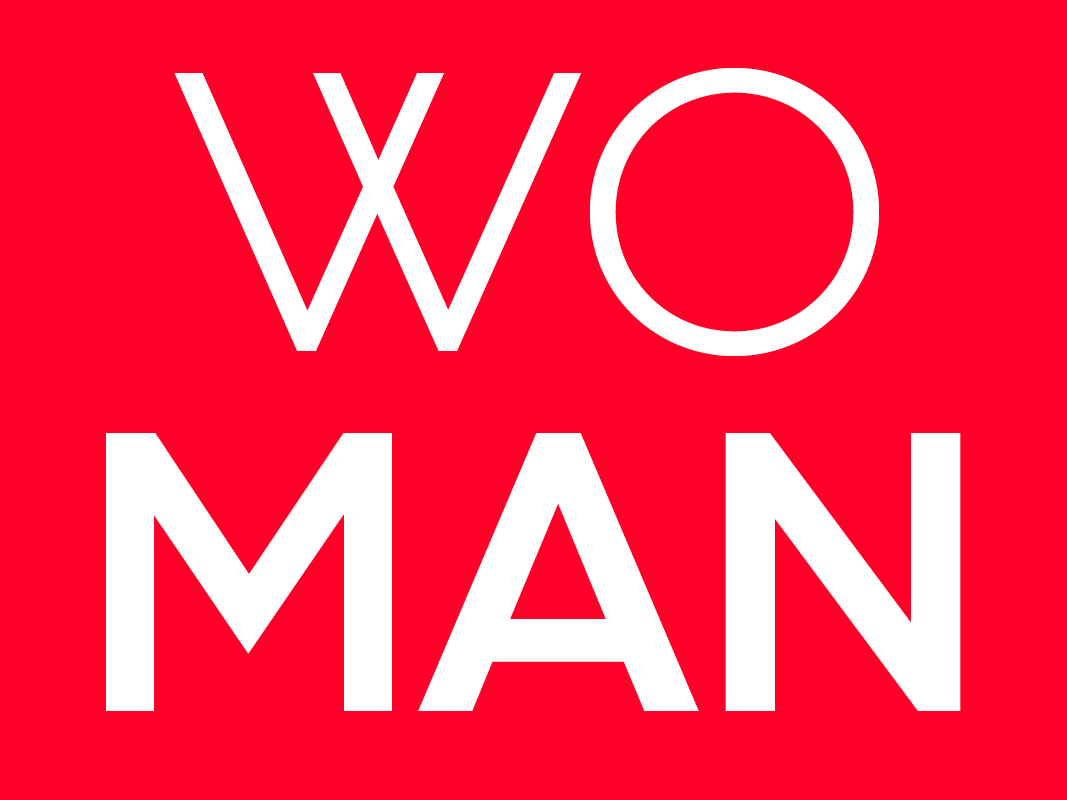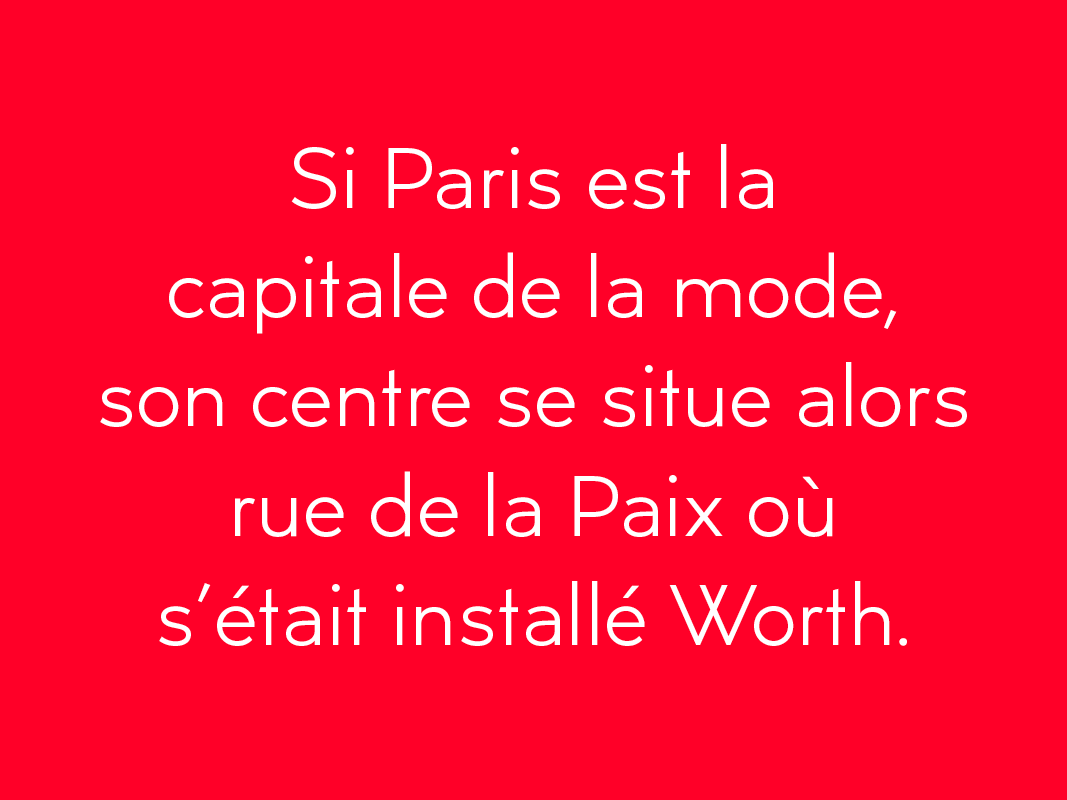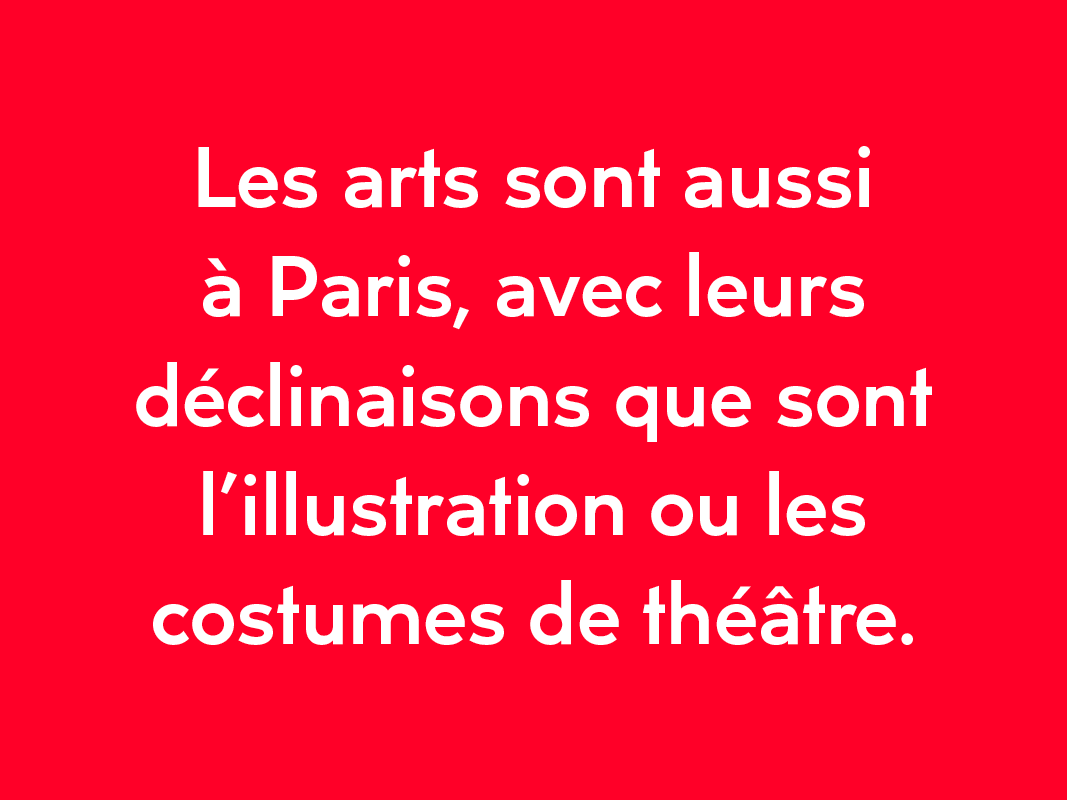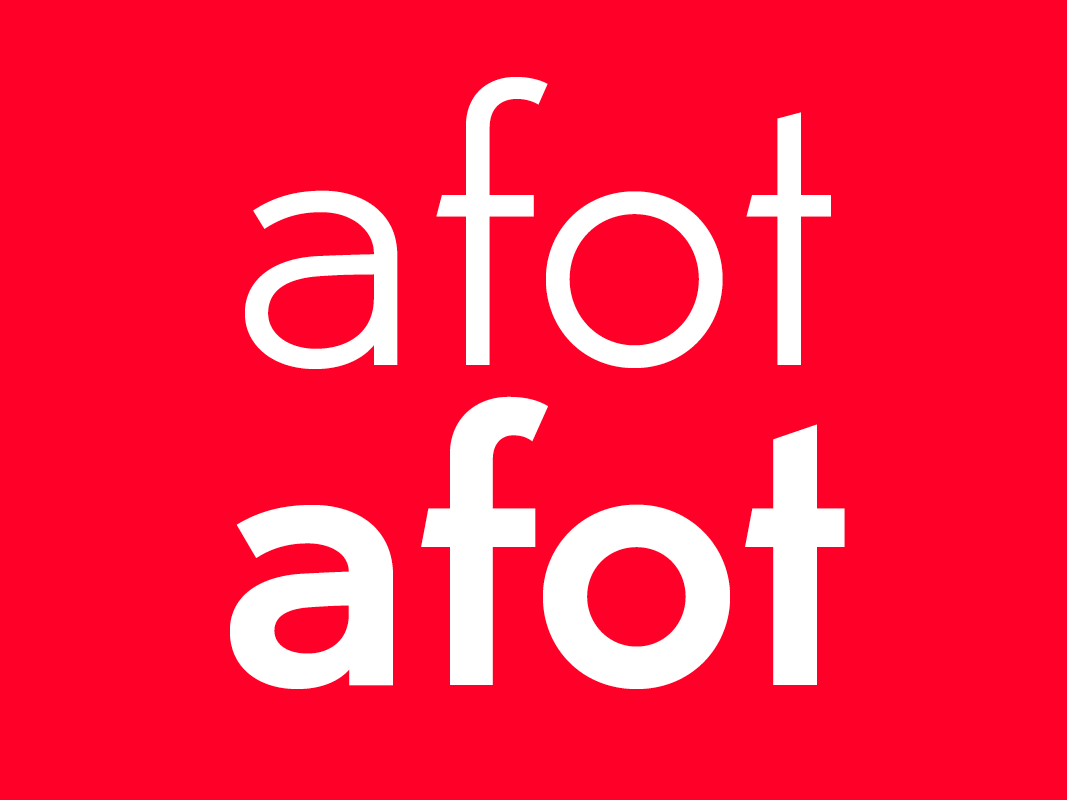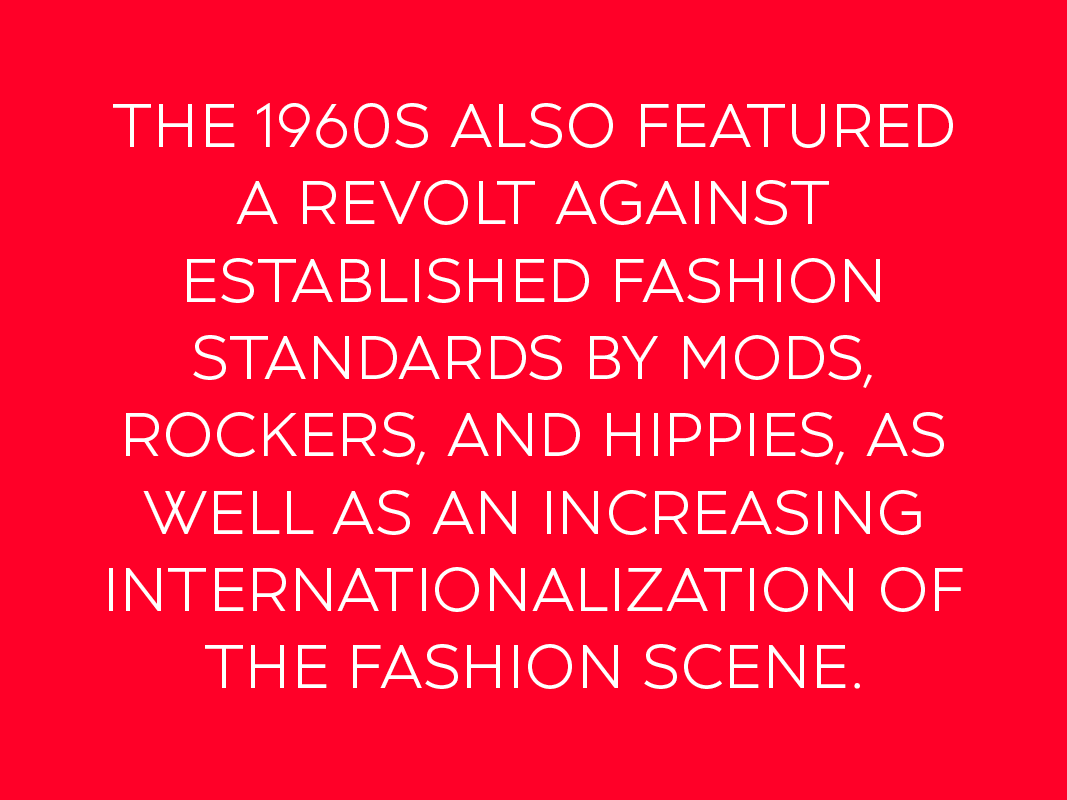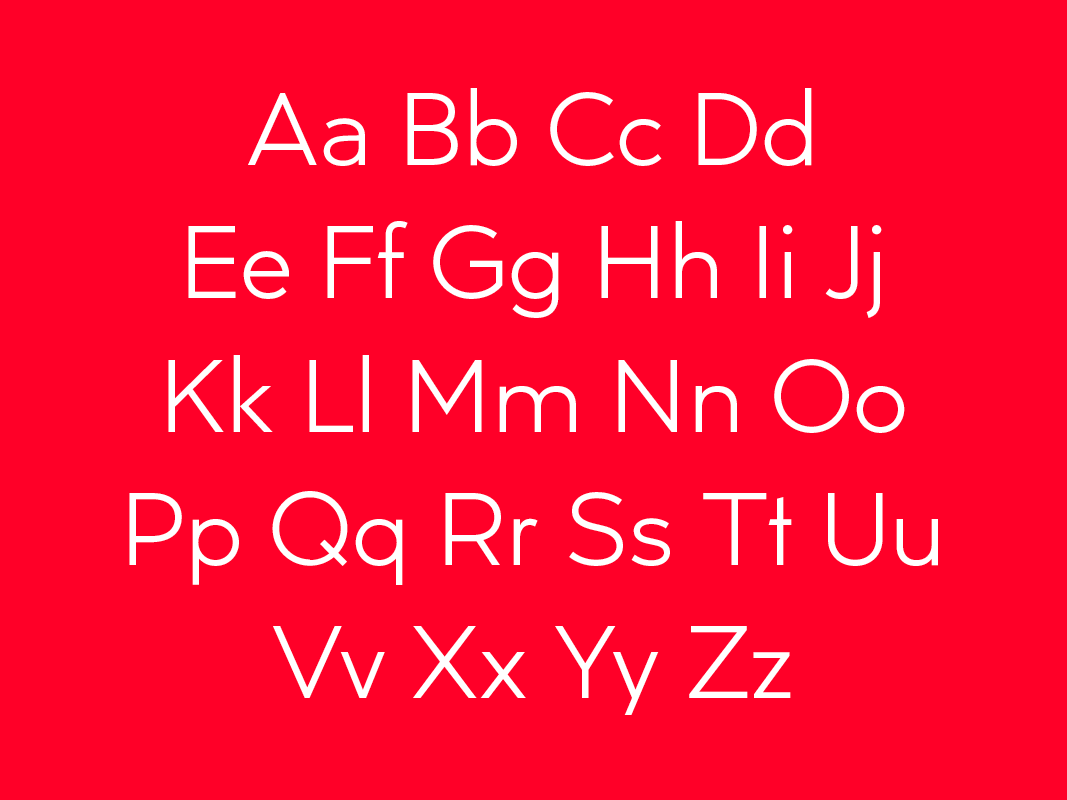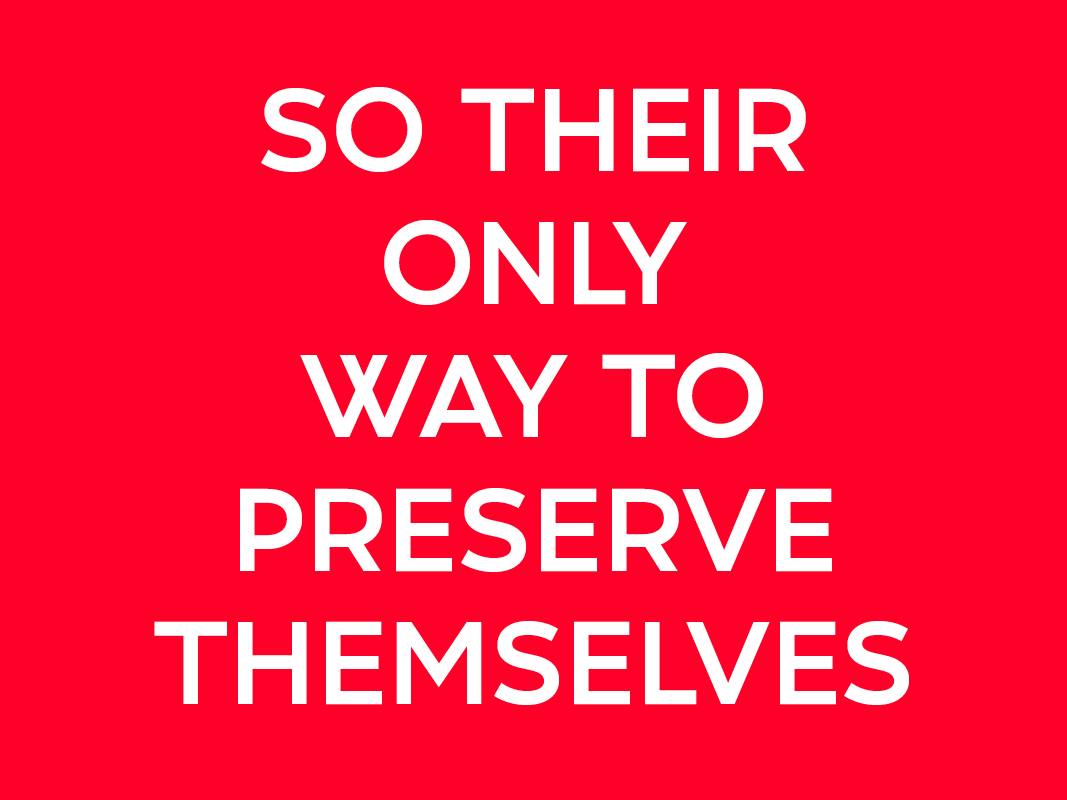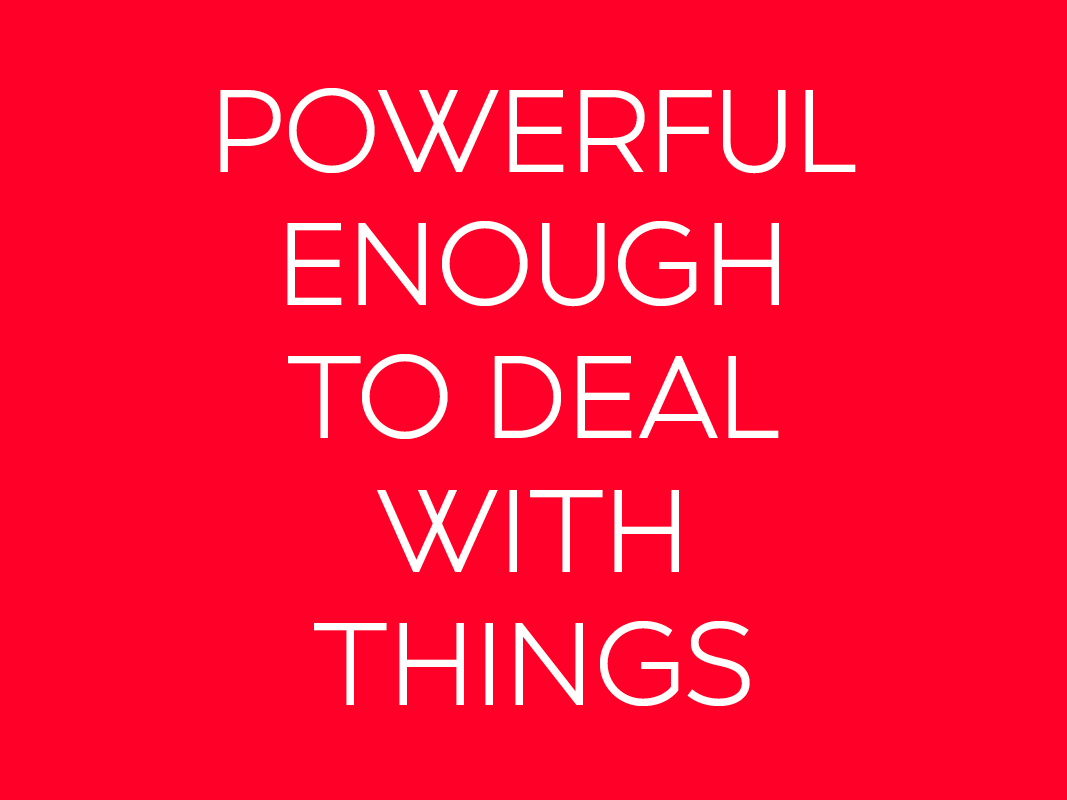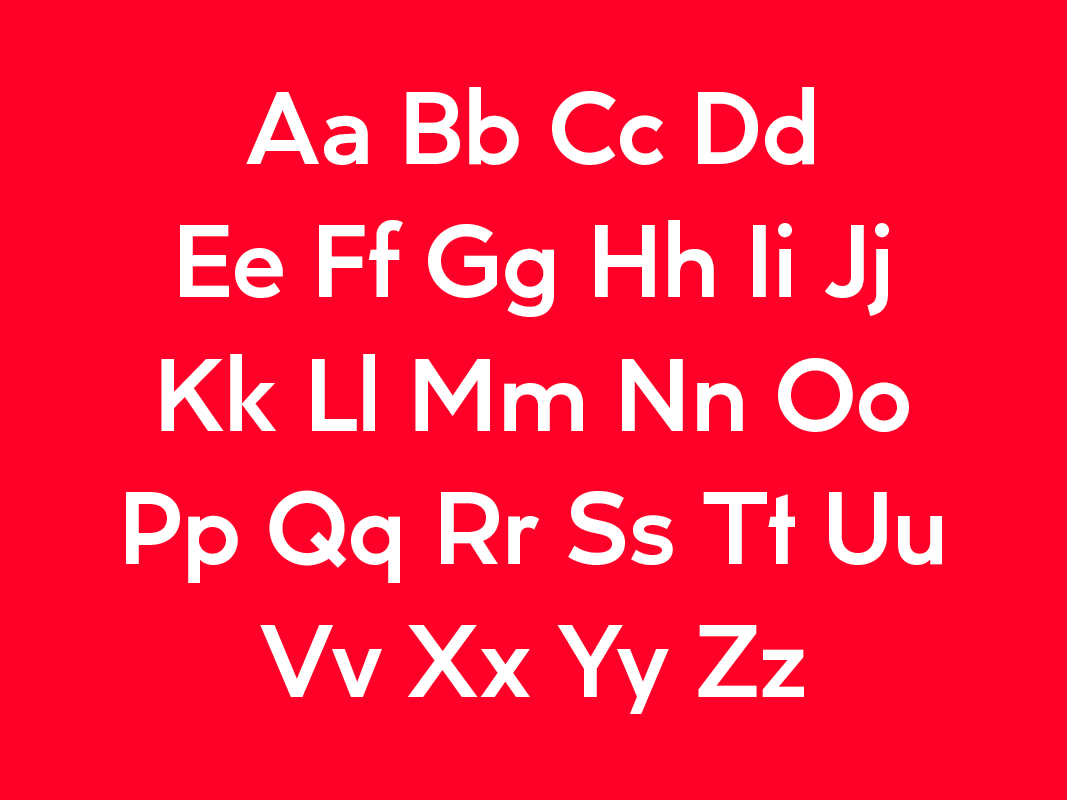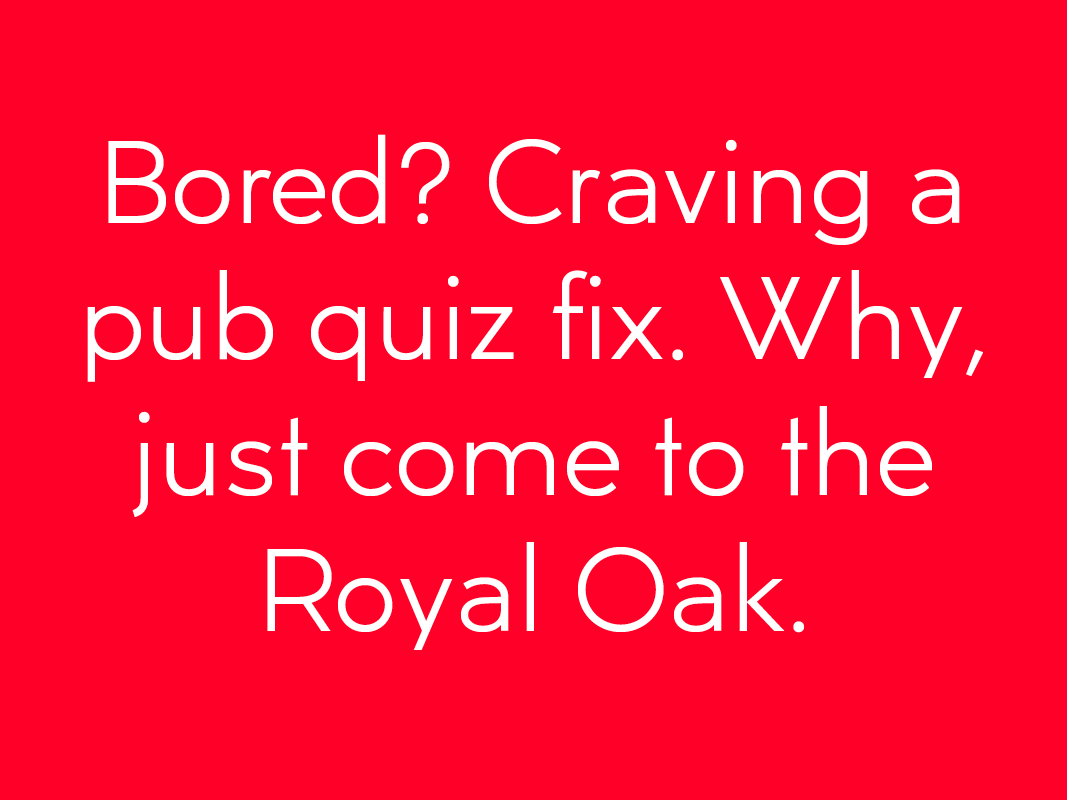
Balenciaga
Custom typeface designed for parisian fashion house Balenciaga. As Alexander Wang was appointed new creative director of the brand, art director Julien Gallico approached us to create a typeface. The geometric design with wide shapes and low contrast takes references from labels found in the Balenciaga archives, and Art Deco proportions, toned down for a more timeless look.
Lancel
For Lancel, we were asked to create a typeface helping refresh the brand. The design directly references the typographic style of the Années Folles, with narrow uppercases and pointed terminals for key letters, while tall lowercases make the design more fitting to today's taste, and legible in text sizes.
Aino: a typeface branding Estonia
For the 100th years of the Republic of Estonia, an ambitious branding system was developed, allowing not only estonian institutions, but also companies and individuals to use the branding toolset and guidelines to communicate and represent Estonia. One of the main and most recognizable element of this brand identity is Aino, a typeface we created under relatively tight deadlines. Aino Headline is a stencil-like display style aimed for big sizes where its particular shapes provide a unique look. Aino Regular and Bold are two styles created for more common usages such as longer text. Estonia is one of the most digitally advanced countries with its e-residency, online voting and tax systems. The typeface expresses this central value with a modern, somewhat technological design, and open shapes which provide great legibility on screen. All three styles include the cyrillic alphabet.